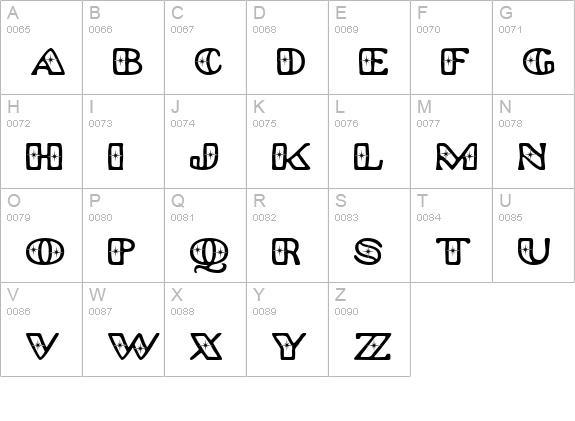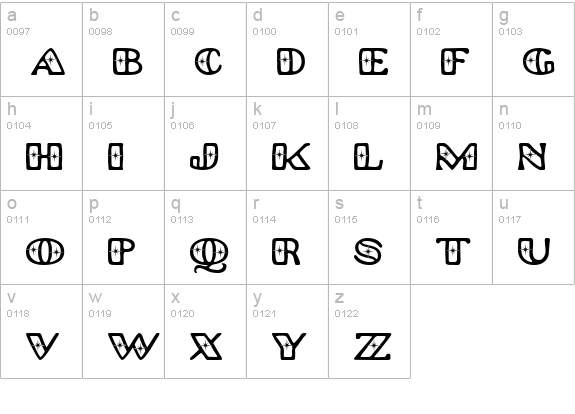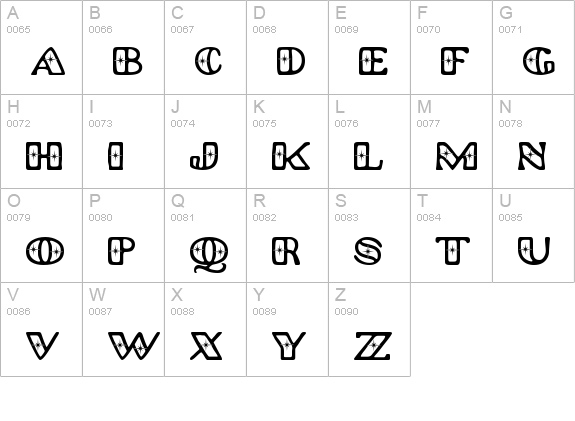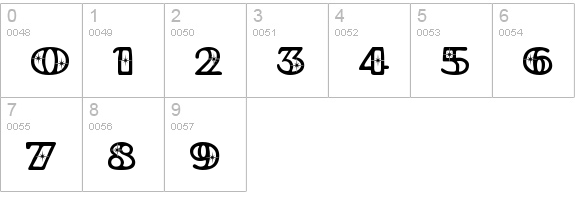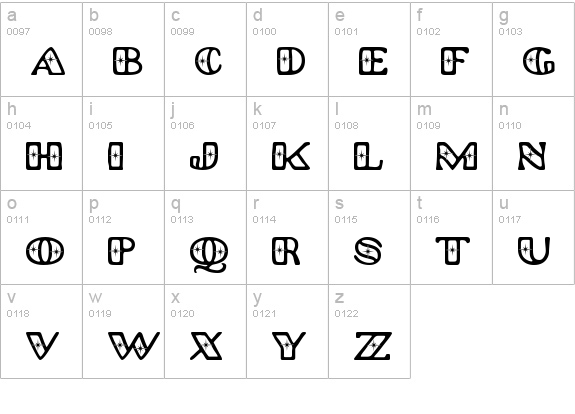
Introducing Platinum Hub Caps Polished font, a sleek and sophisticated typeface that exudes luxury and elegance. This font features intricately designed characters with a polished finish that adds a touch of refinement to any project. The Platinum Hub Caps Polished font is perfect for creating high-end designs, branding materials, invitations, and more. And the best part? This exquisite font is available for free download exclusively at FontsMarket.com. Don't miss out on the opportunity to add a touch of glamour to your designs with Platinum Hub Caps Polished font. Download it today and elevate your projects to the next level of sophistication.